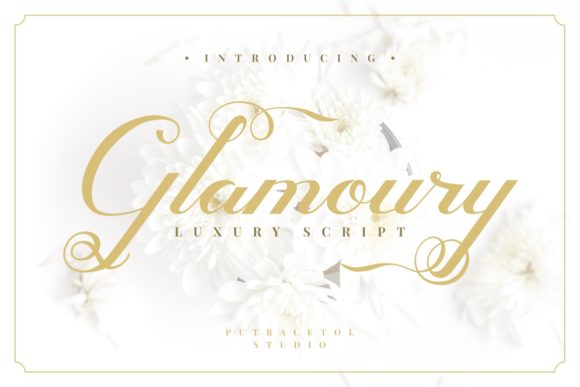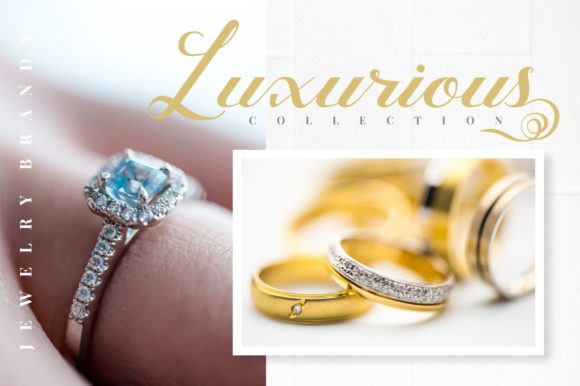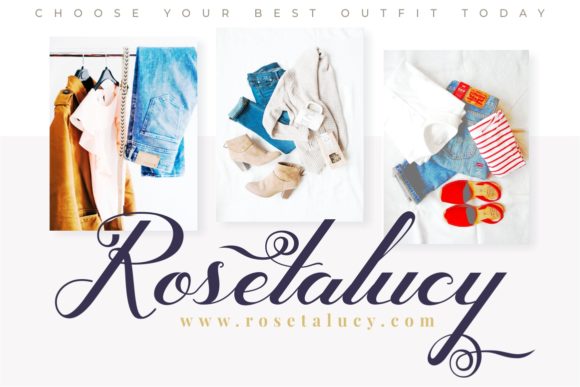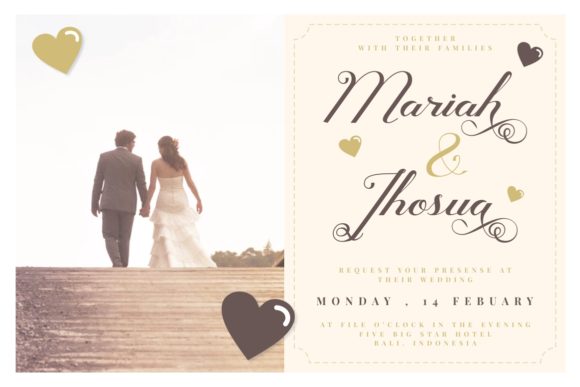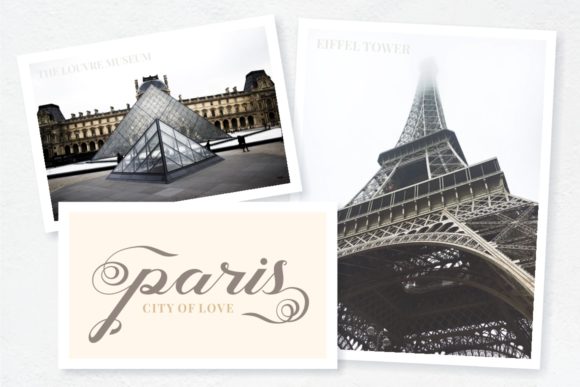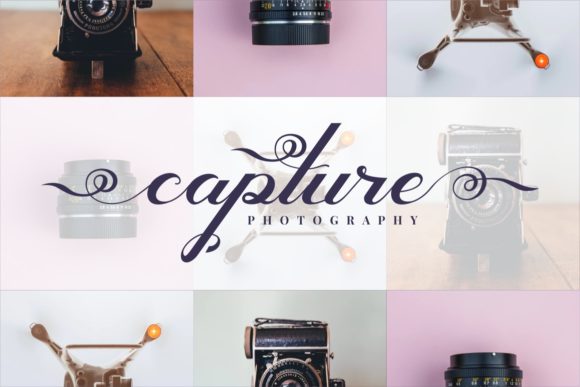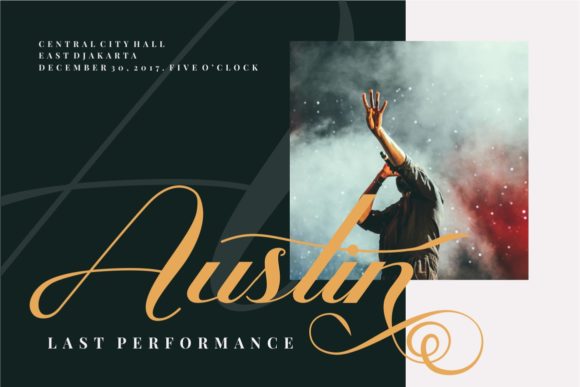
Glamoury Font
About Glamoury Font
The Glamoury is a luxurioius script font. It has an elegant and royal feel and will add a glamorous touch to your designs.
It can be used for headings, covers, invitations, labels, posters, logos, quotes, product packaging, merchandise, social media & greeting cards and much more!